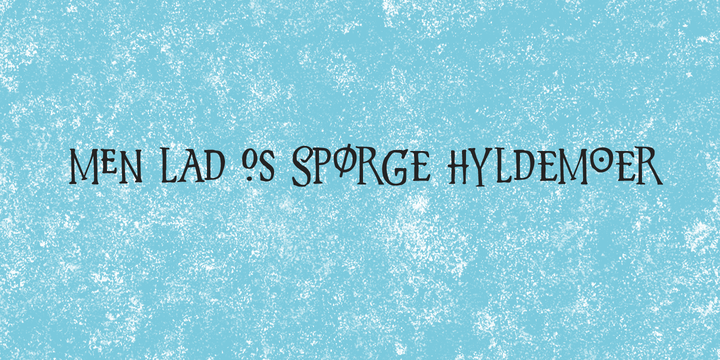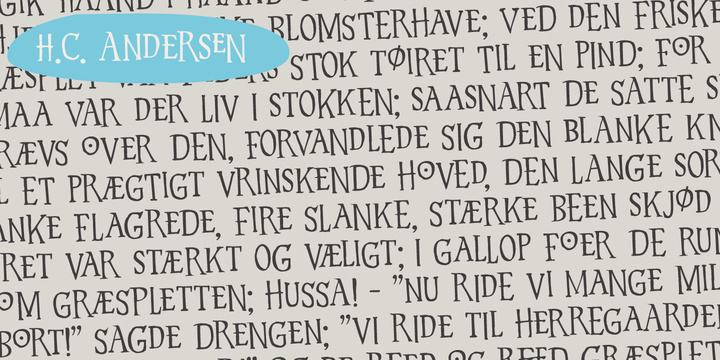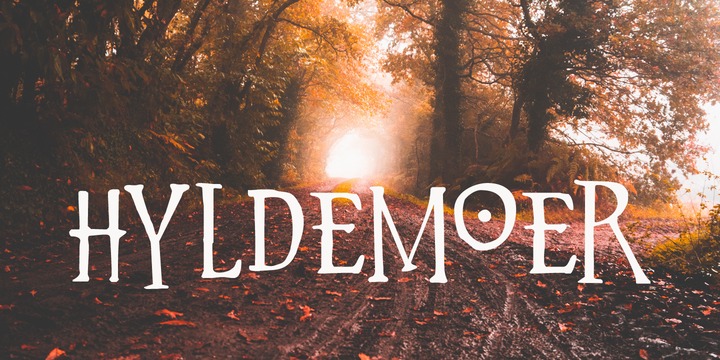
Hyldemoer (in Nordic folklore) is a tree spirit, or nymph, who lives in elder trees. H.C. Andersen also wrote a story about Hyldemoer (The Little Elder-Tree Mother in English). Hyldemoer font is based on my Mysterious font and the first letters of the Beowulf manuscript (Hwæt! We Gardena).
Hyldemoer is a jumpy fairytale font, which comes with some interesting alternate glyphs and ligatures, plus a harvest of diacritics.
Use it for your book covers, product packaging, posters and art work.